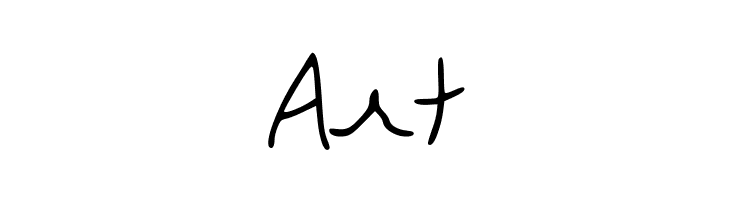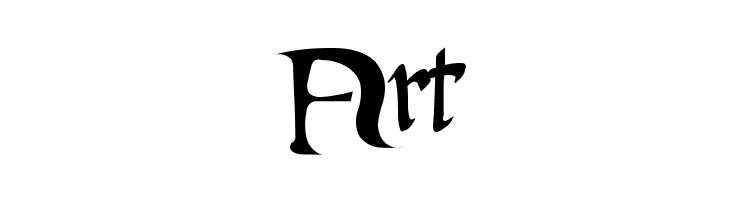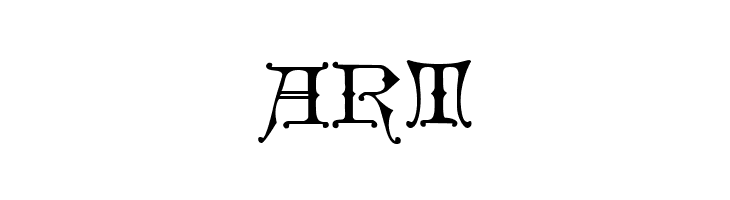
( Freddiemerqwerty - freddiemerqwerty.weebly.com/ )
A playful and casual handwritten font with fluid, expressive strokes.
( GeelynEdits - plus.google.com/u/0/108461348931992643310/ )
A super thin, elegant handwriting-style font with a modern touch.
( Google - developer.android.com )
A geometric, angular script with uniform line thickness enclosed in square boxes.
( Helldunkel - www.helldunkel.com )
A bold, geometric font with blocky, angular shapes and a modern industrial feel.
( Illustrator Georgie Retzer - www.facebook.com/illustratorg )
A medieval gothic font with ornate, angular letterforms and a historical manuscript feel.
( Intellecta Design - new.myfonts.com/search/intellecta/fonts/?sort=sales?refby=paulow )
A traditional blackletter font with ornate, angular lines and bold strokes.
( Intellecta Design - new.myfonts.com/search/intellecta/fonts/?sort=sales?refby=paulow )
A futuristic font with circular and linear elements creating a modern, innovative look.
( James Fordyce )
An ornate Gothic font with intricate detailing and medieval flair.
( Julia Guinto )
A bold, expressive script font with fluid, cursive strokes and decorative flourishes.
( Konstantine Studio - www.behance.net/konstantinestudio )
An elegant cursive font with flowing, ornate letters and graceful connections.